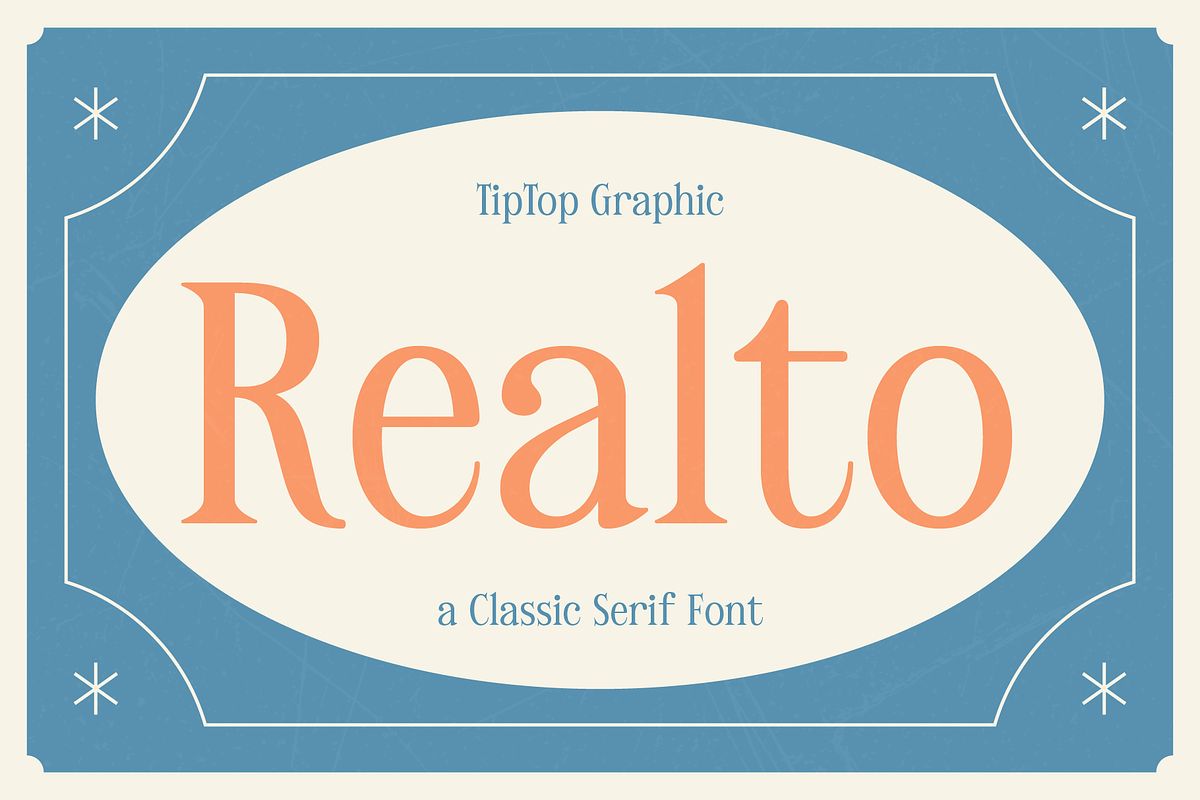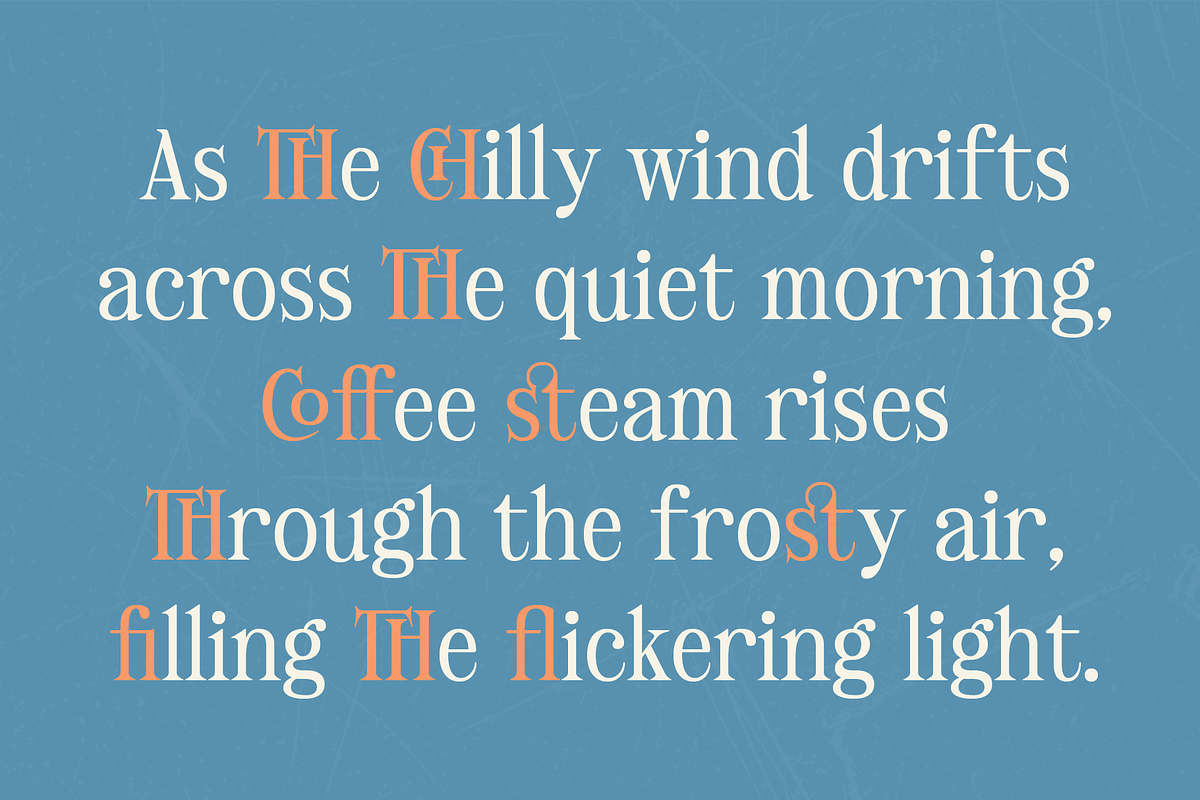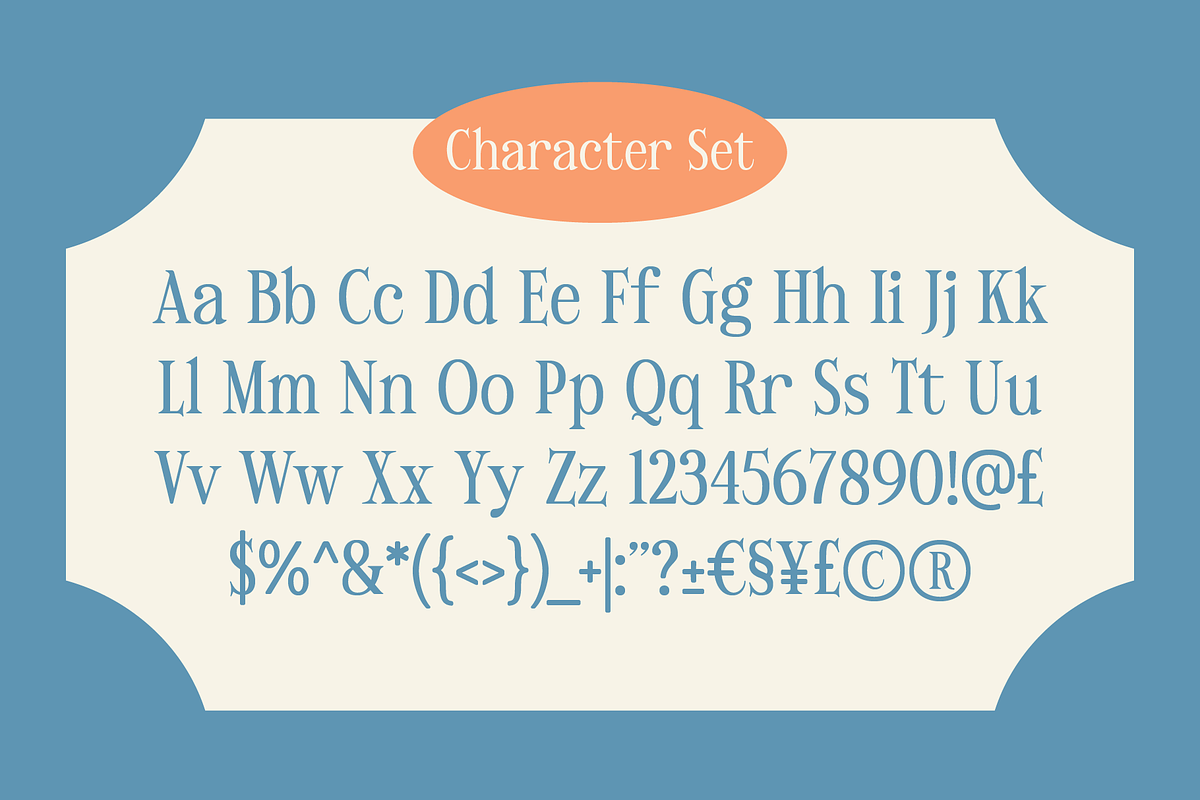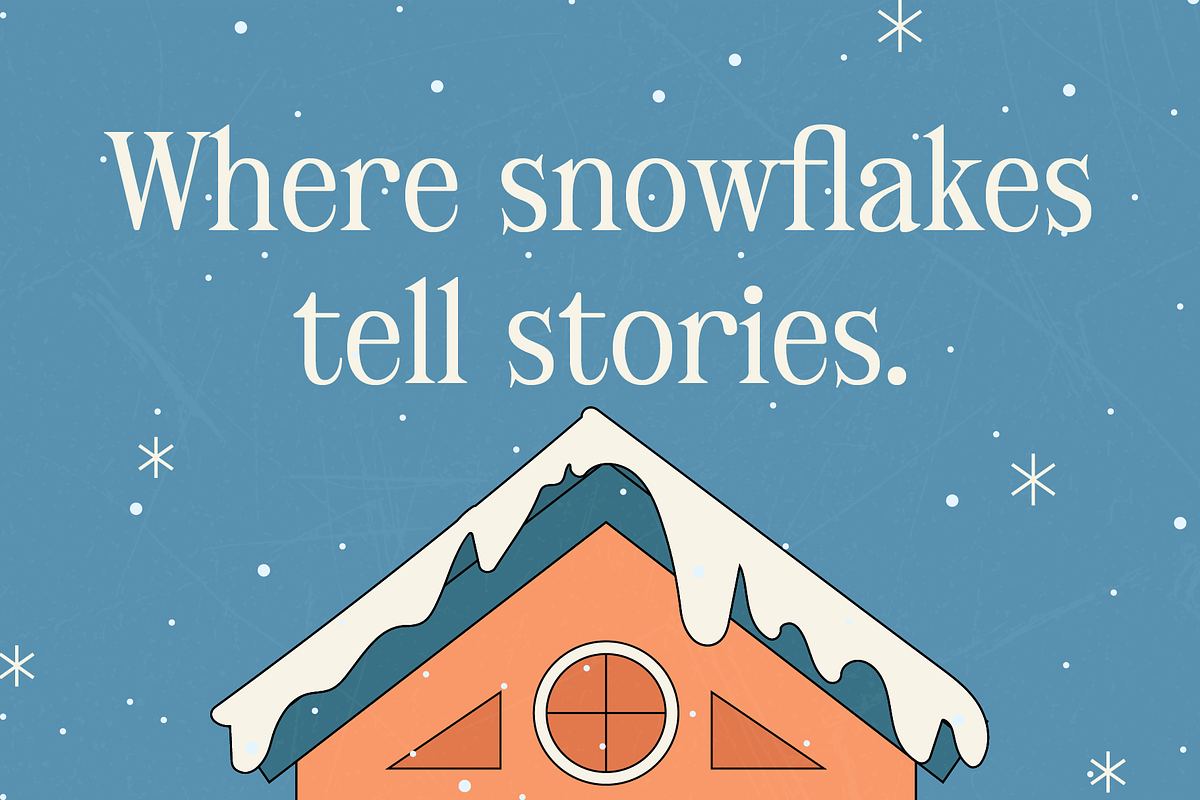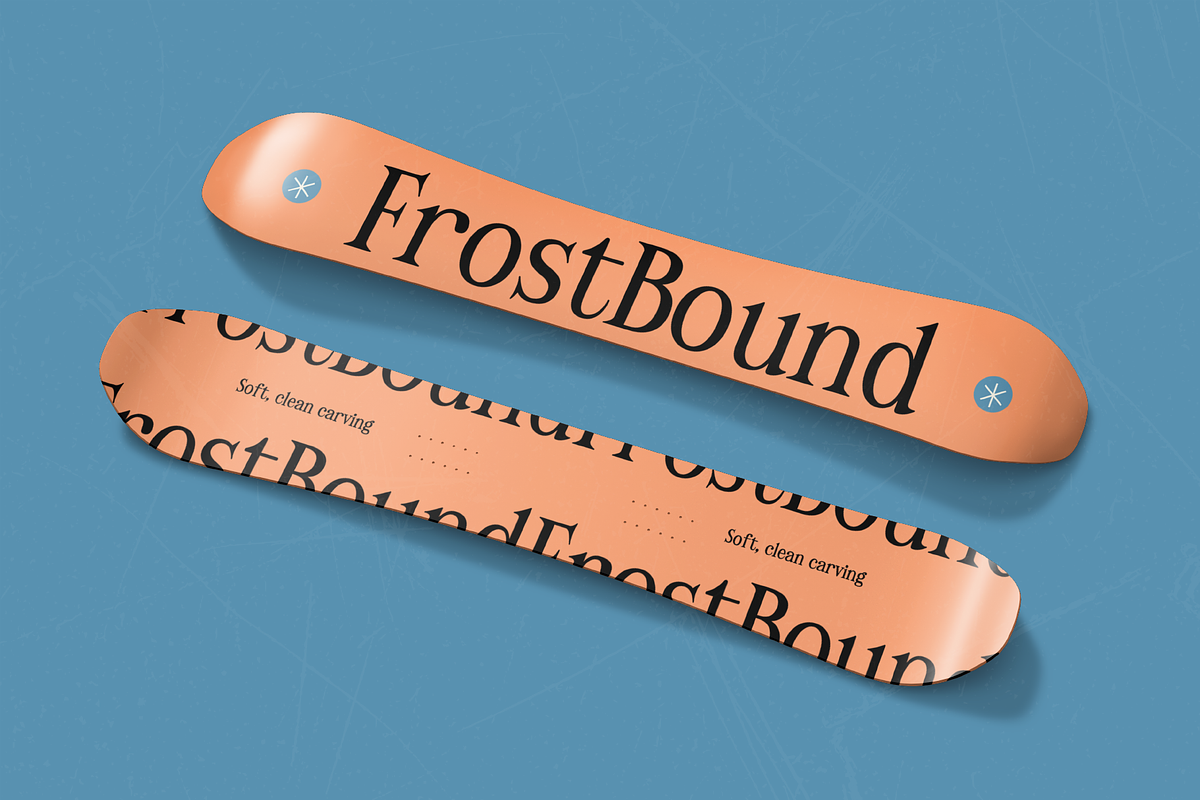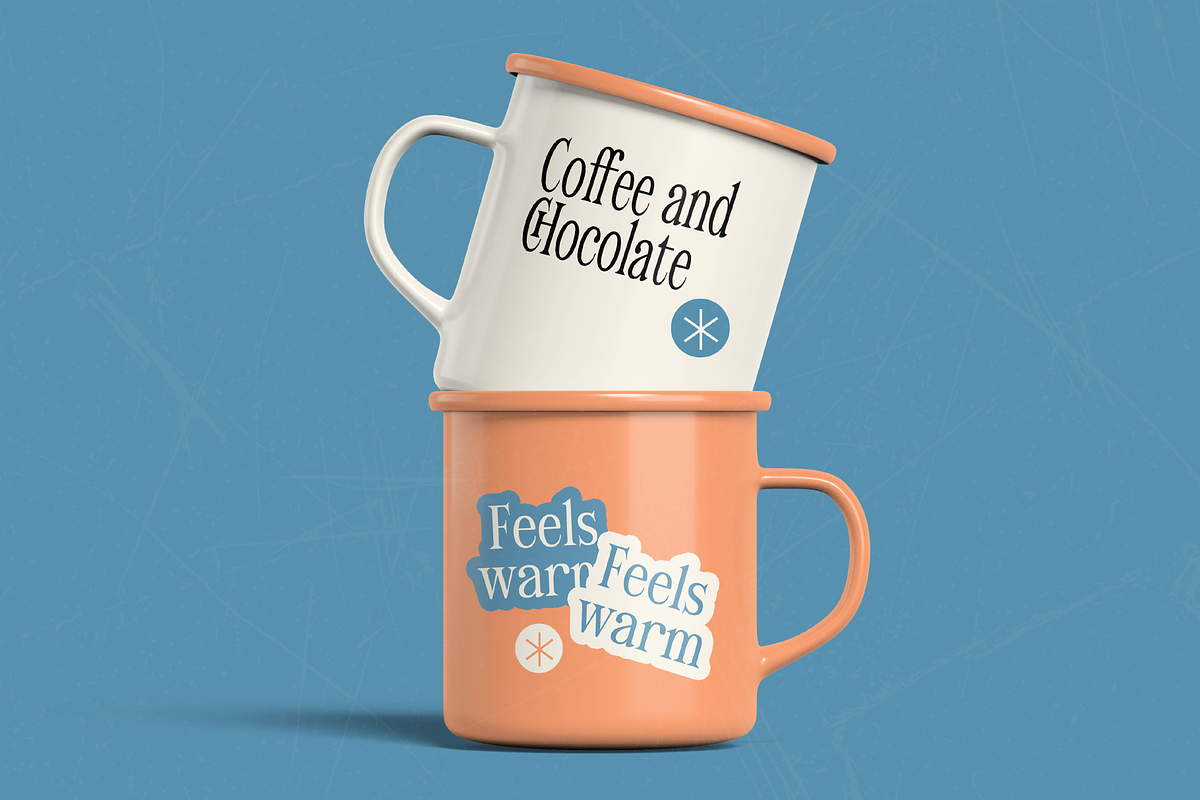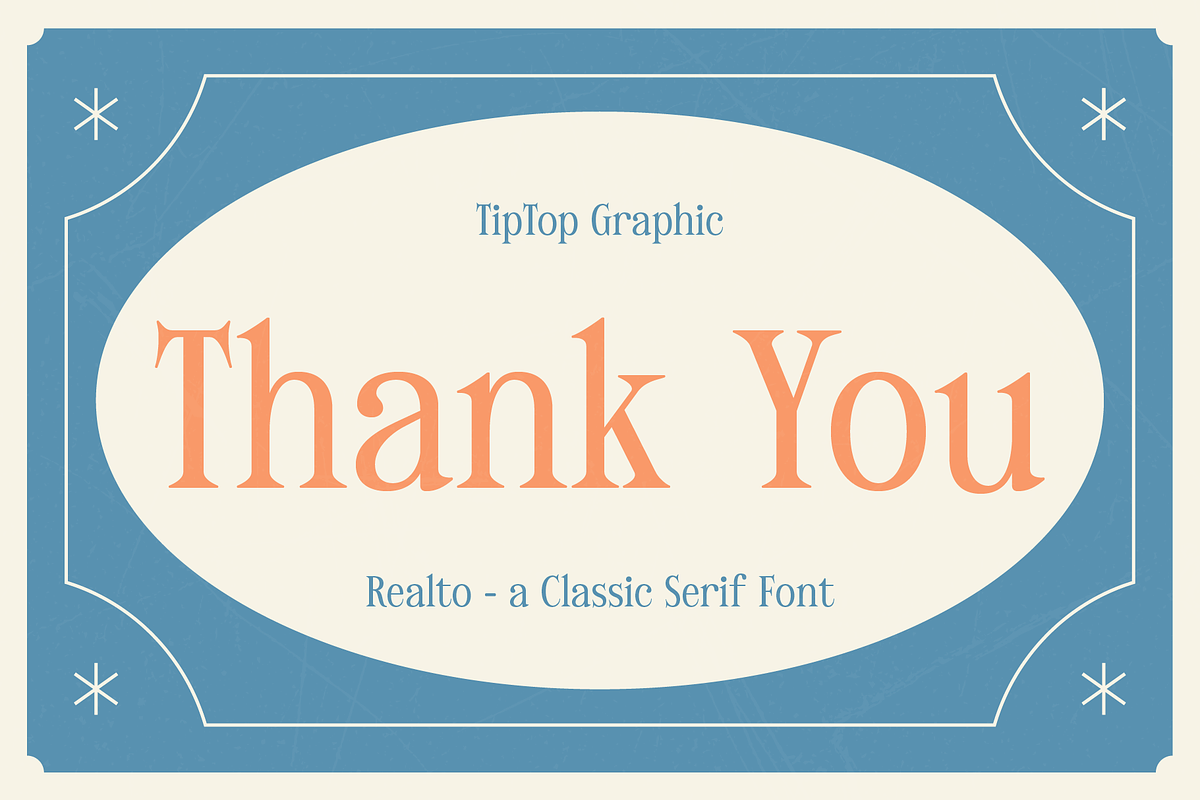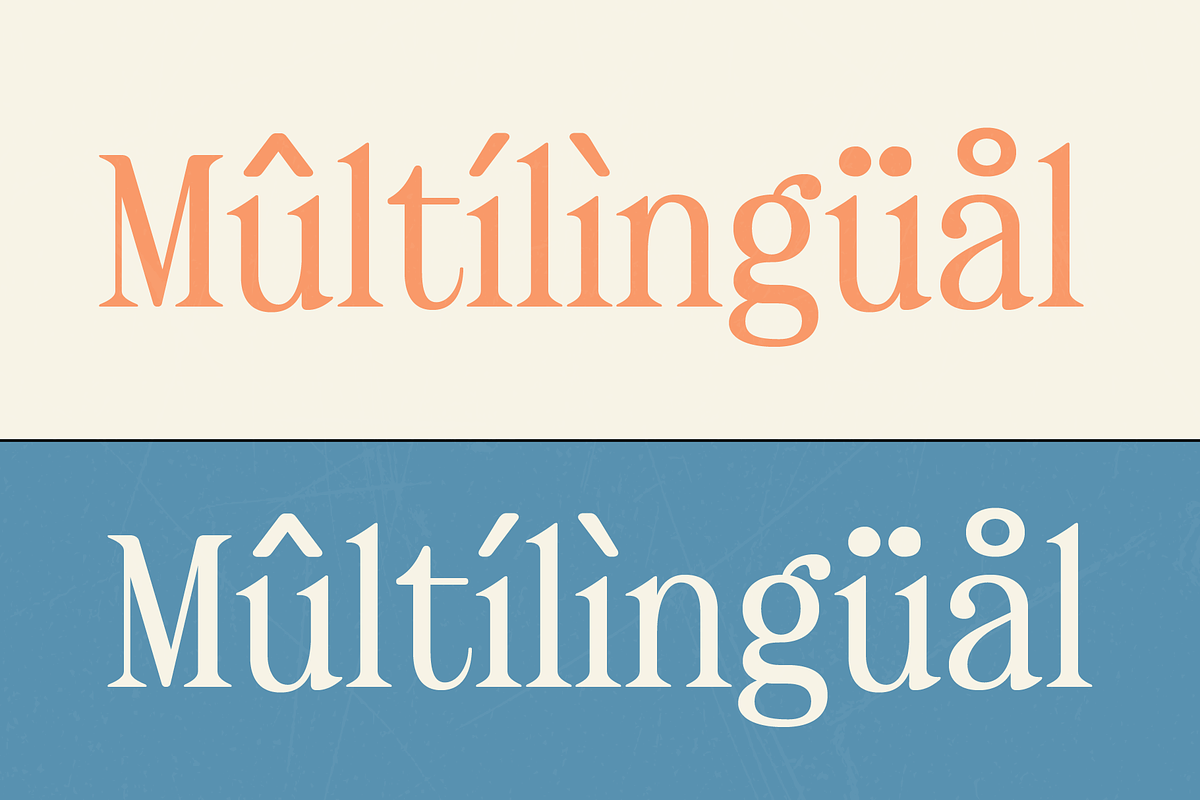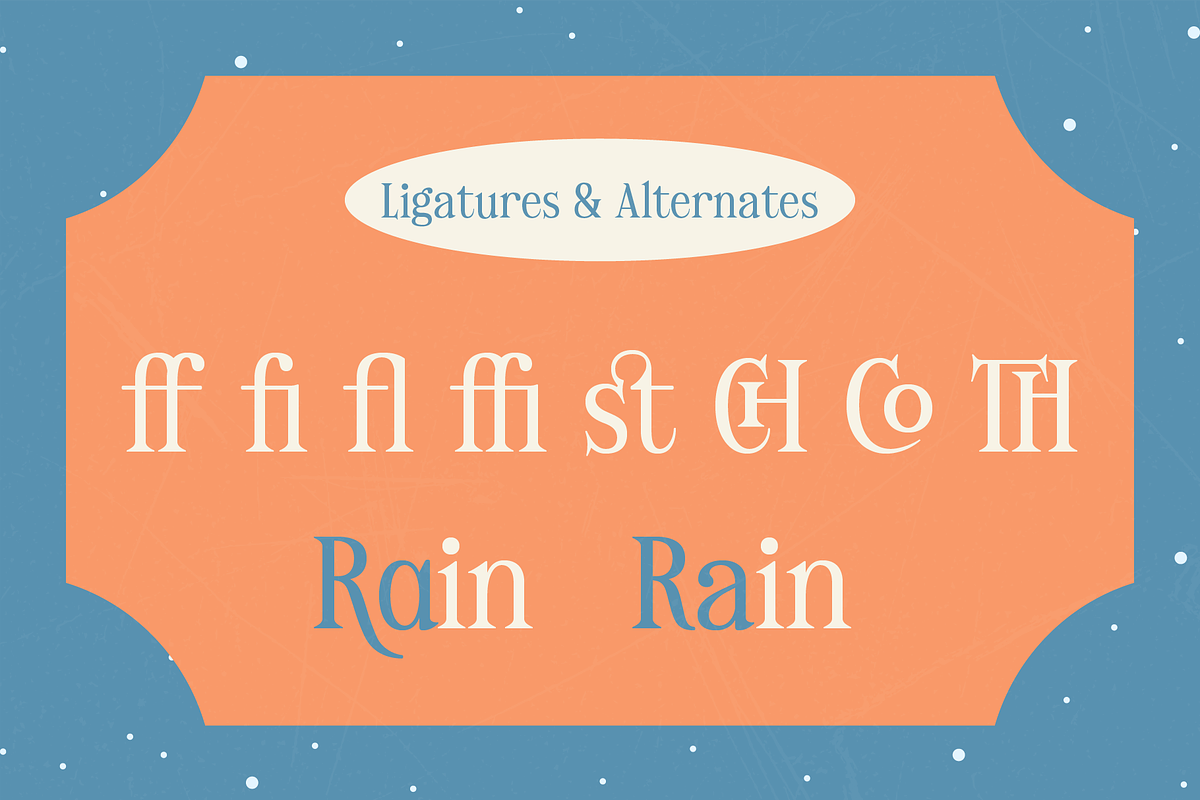
Realto – Classic Serif Font
Realto is a timeless classic serif font crafted with elegant proportions and refined details. Inspired by traditional typography, it delivers a strong yet graceful presence that feels both professional and sophisticated. Its balanced letterforms and clear structure make Realto highly readable while maintaining a classic, authoritative character.
Perfect for editorial design, branding, book covers, logos, invitations, and luxury packaging, Realto adds a sense of heritage and trust to any project. With its enduring style, Realto is a reliable choice for designs that call for classic elegance and lasting appeal.